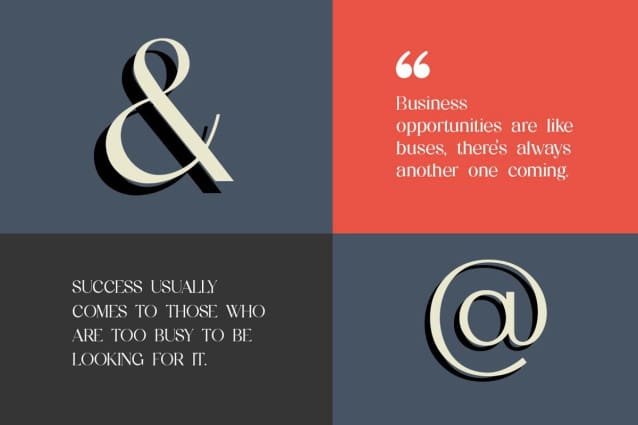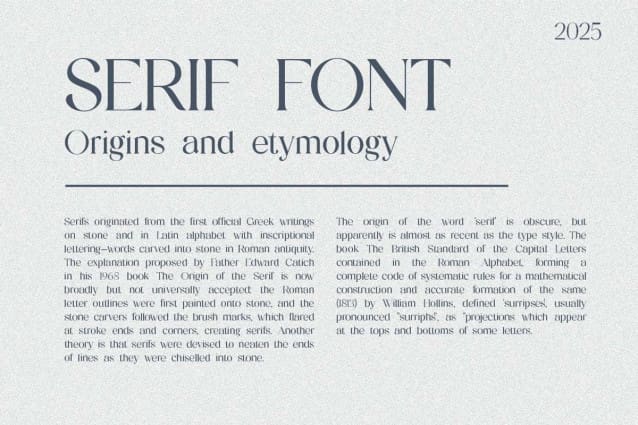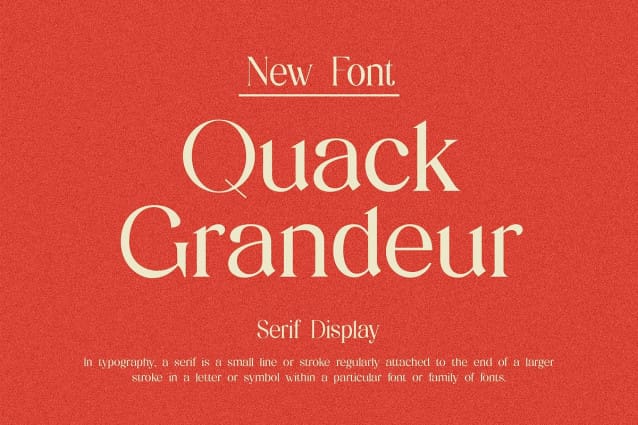
Quack Grandeur Font
Quack Grandeur Font – Serif Dislay Font. The modern display font feels beautiful classy, elegant, and stylish. This font is ideally suited for a wide variety of projects, such as signature, stationery, logo, wedding, typography quotes, magazine or book covers, website headers, branding, and more. Also, fashion-related branding or editorial design displays both masculine and feminine qualities.